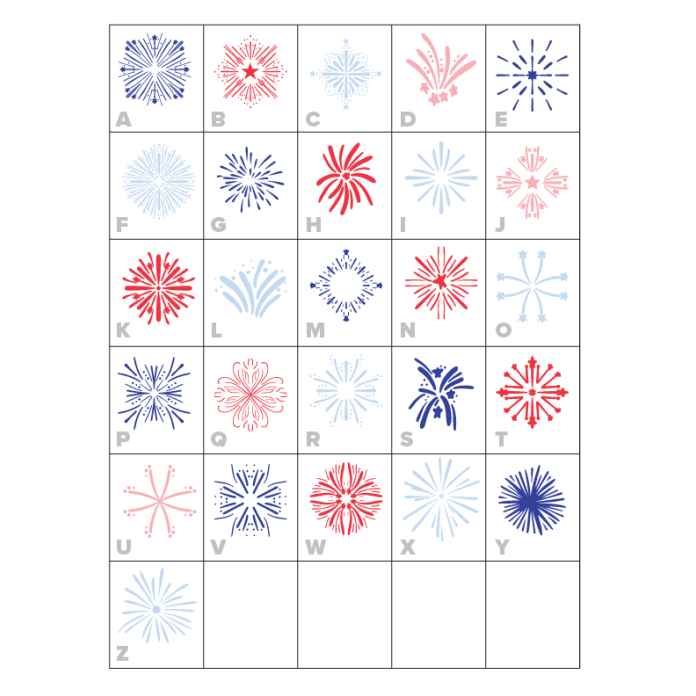
This font is a OTF craft font that will appear in color only when used with the silhouette software. Use this font to create July 4th home decor, table settings, HTV shirts and more!